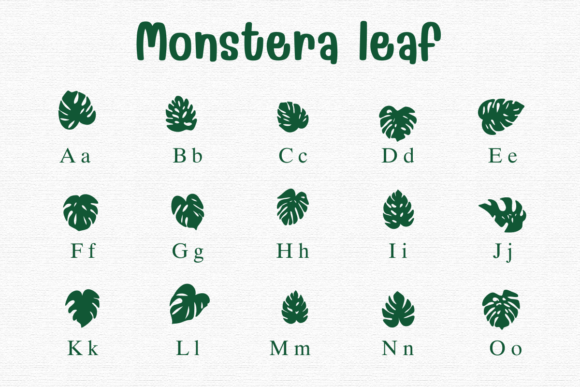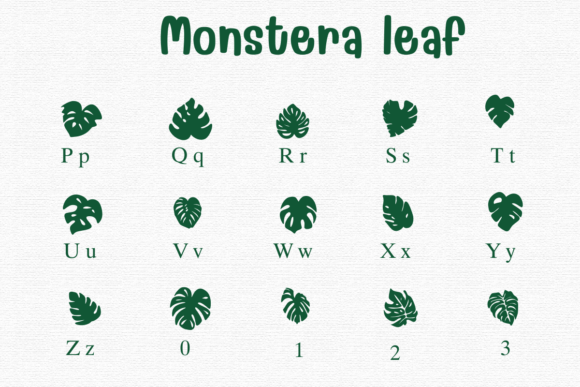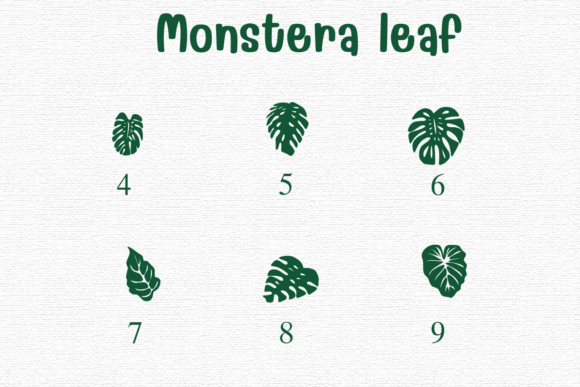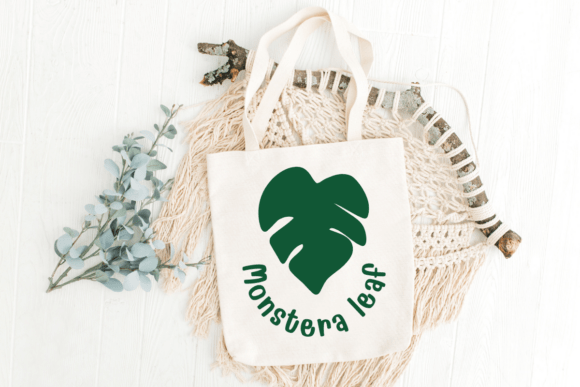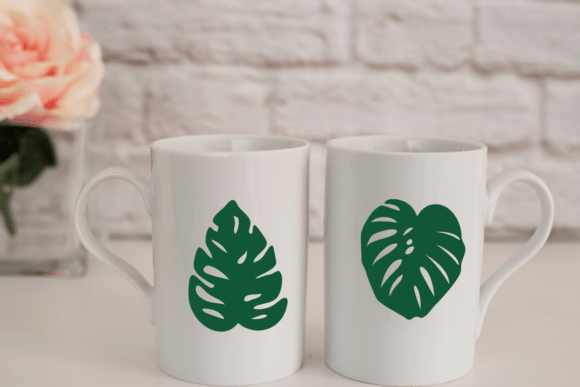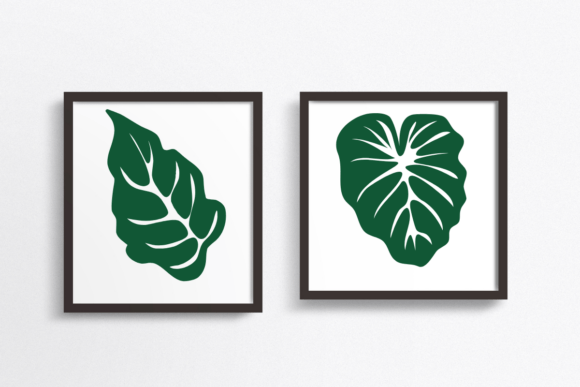
Introduction to Monstera Leaf Font
Monstera Leaf is a leafy dingbats font featuring a variety of hand-drawn monstera leaves in different styles.
Perfect for botanical logos, nature-themed branding, organic packaging, and tropical decor projects .
Key Features of Monstera Leaf Font